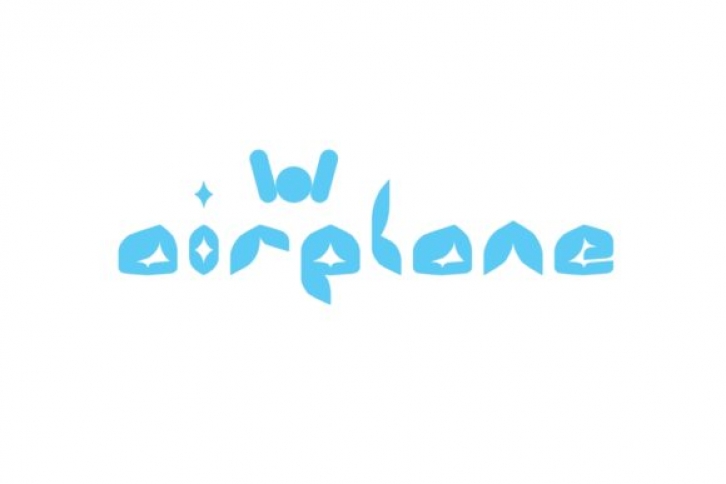
Airplane is a playful display font. Perfectly suited for logos, t-shirts, magazine designs, and any other creative designs.
Give your new projects a creative spark with this lovely font.